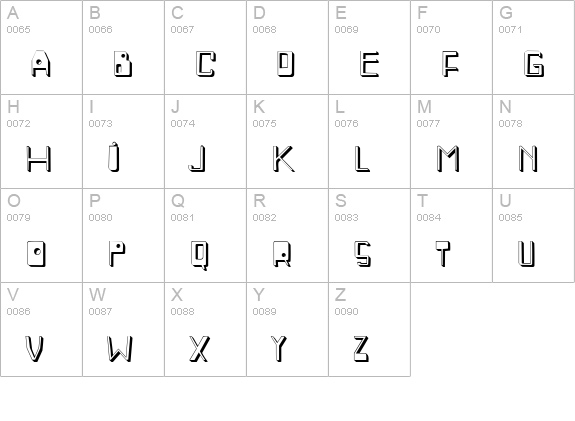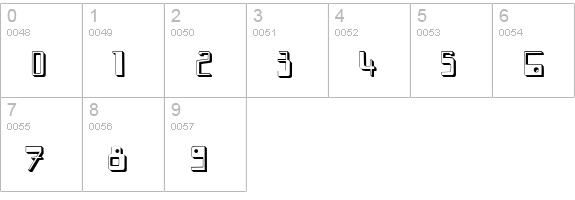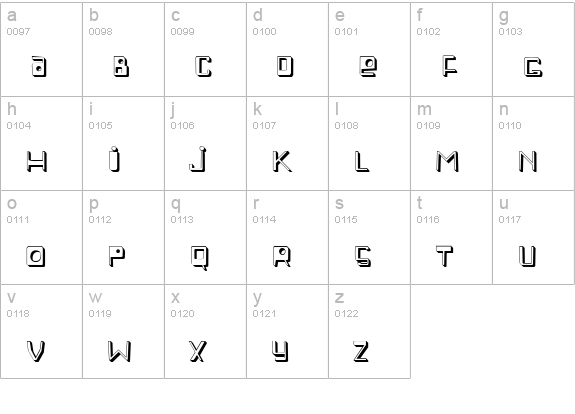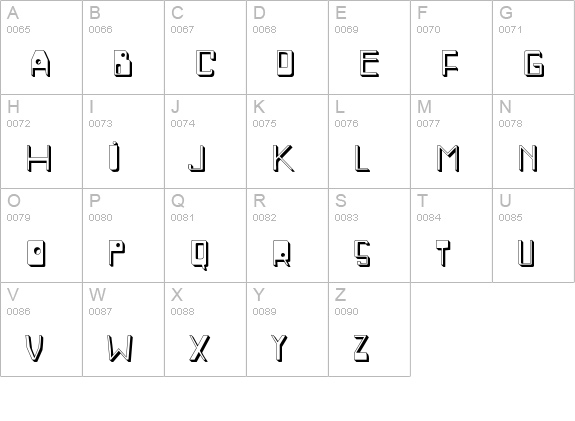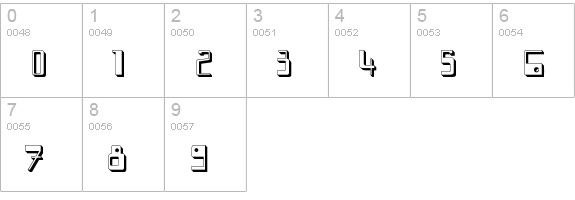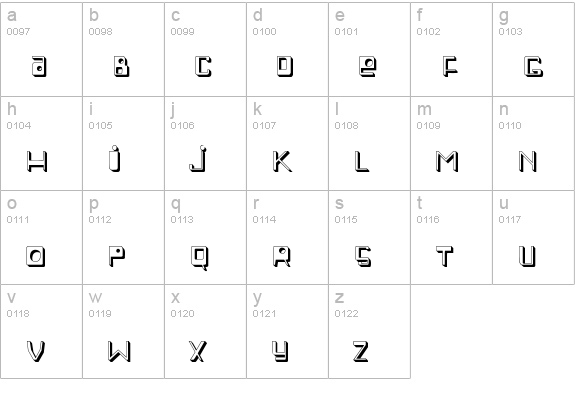
PFBeatnickPro-Shadow Font Details
PFBeatnickPro-Shadow font is a stylish and modern typeface that exudes creativity and flair. Its unique shadow effect adds depth and dimension to any text, making it stand out in various design projects. This versatile font is perfect for posters, headlines, logos, and more, helping to create a bold and eye-catching visual impact. What's even better is that PFBeatnickPro-Shadow font is available for free download at FontsMarket.com. This means you can easily access this striking font and incorporate it into your designs without any cost. Don't miss out on the opportunity to enhance your creations with the distinctive charm of PFBeatnickPro-Shadow font. Download it now and let your creativity shine!